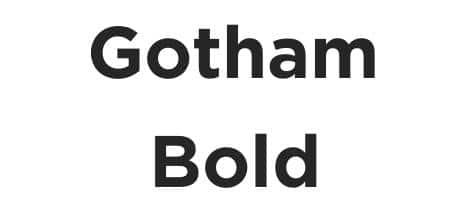
Gotham Bold Font
The bold architectural capitals that inspired the iconic Gotham typeface are merely the cornerstone of a versatile family of fonts. Four different widths in a range of weights, plus deep character sets, extended language support, and versions for different media, combine to make Gotham a powerful and indispensable design.
Each of the four widths in the Gotham family contains the same eight weights, from Thin to Ultra, each provided in both roman and italic. Gotham maintains visually consistent intervals between its weights, to ensure that every style has a heavier counterpart that provides the same degree of emphasis.